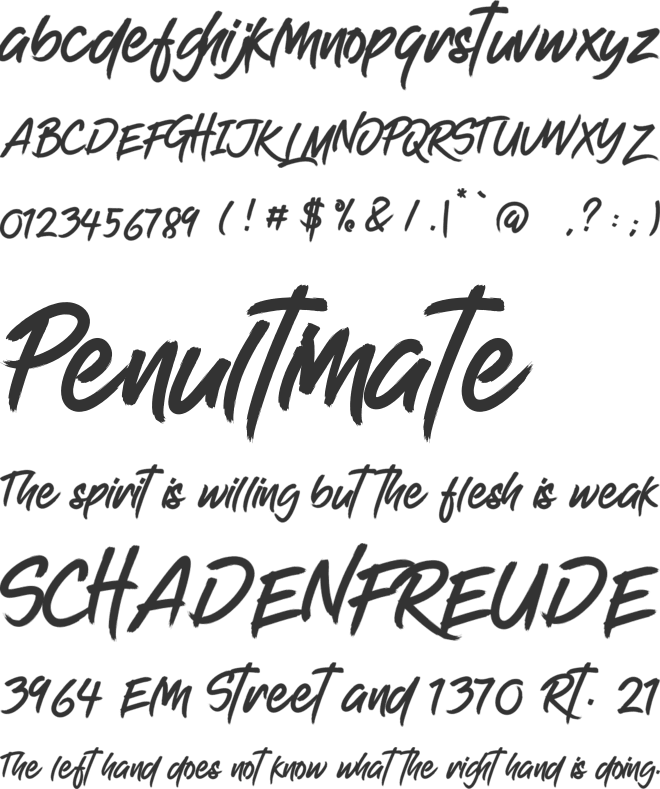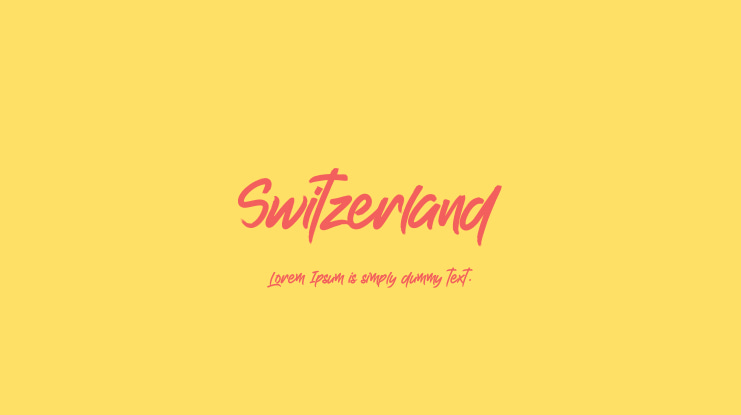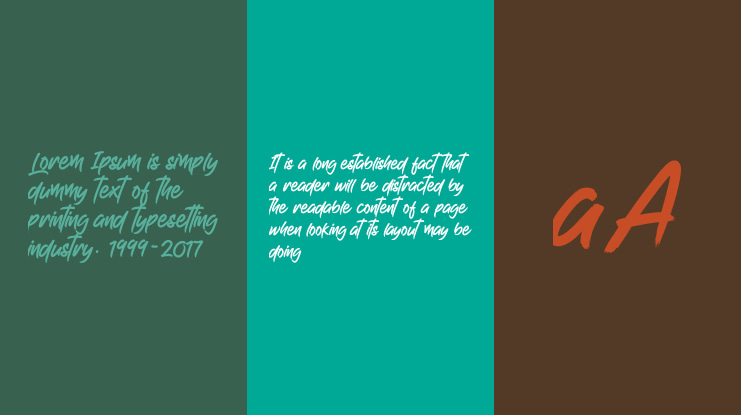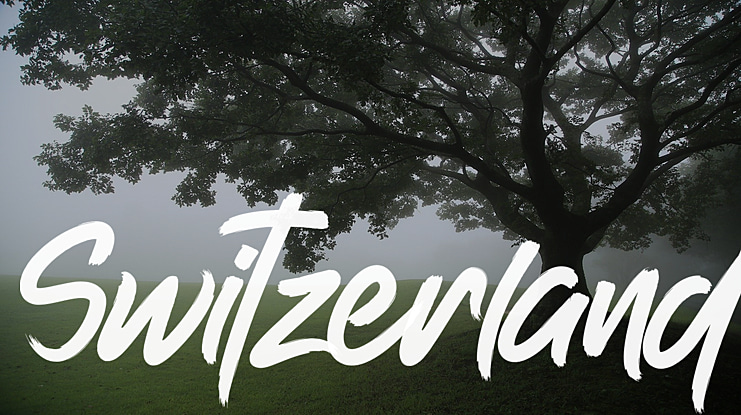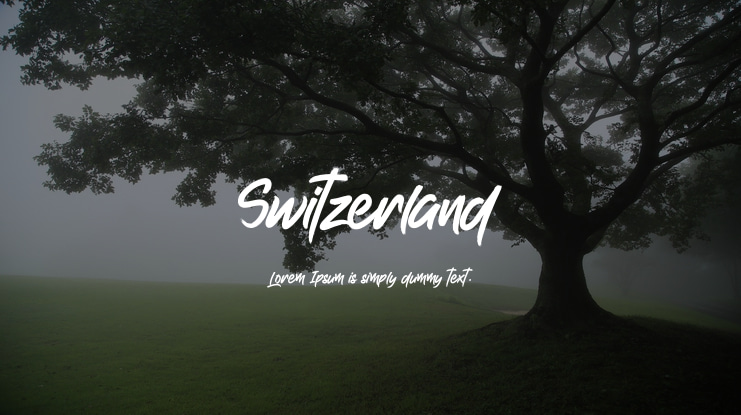
Switzerland Font
Switzerland is a fancy, professional, and cursive script font. Carefully and neatly designed, this typeface will make your creation more assertive and attractive. It is perfect for headlines, logos, crafts, and all kinds of apparel and merch projects.
Also This is a fun and friendly handwritten font. Whether you’re using it for crafts, digital design this font has the potential to become your favorite font, whatever the occasion!